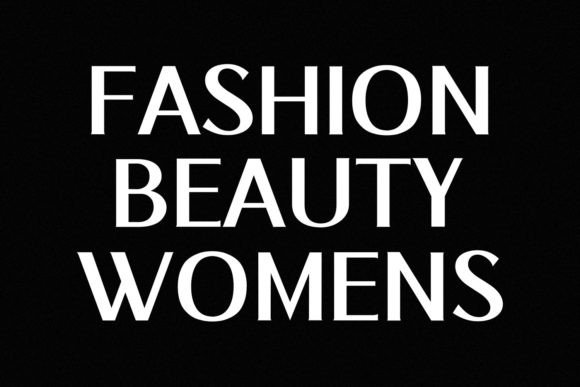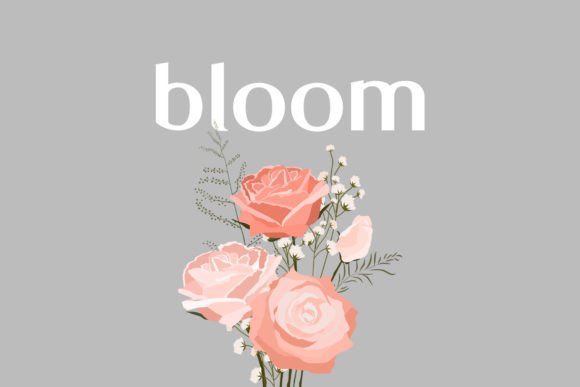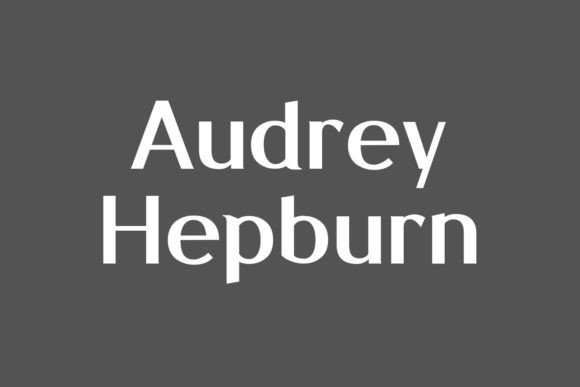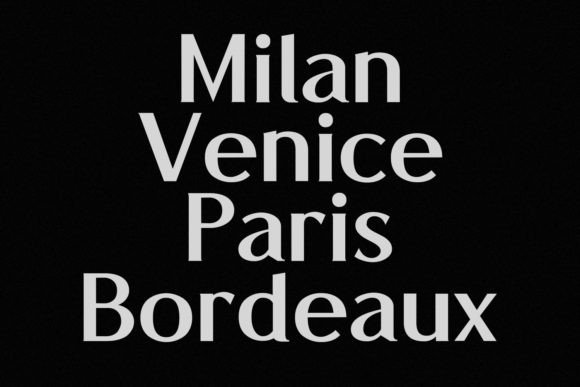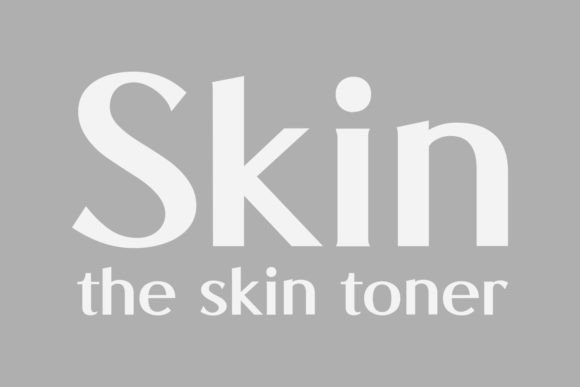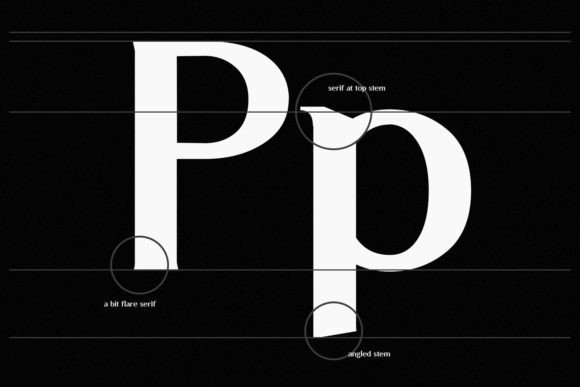
Unveiling the Epitome of Luxury Typography: Abigar Font
As designers, we’ve all been there – staring at a blank canvas, trying to conjure up the perfect font to elevate our brand’s identity. The search for that elusive ‘wow’ factor can be a daunting task, but what if we told you that the solution lies in the sleek, refined lines of the Abigar Font?
This exquisite serif font is designed to transport your audience to a world of sophistication and elegance. With its balanced proportions and seamless swashes, Abigar Font is the perfect choice for luxury branding, high-end editorial design, and any project that demands a touch of timeless beauty and class. As a designer, you’ll appreciate the value of this PUA-encoded font, which makes accessing all glyphs and swashes effortless.
Whether you’re working on a high-stakes campaign or a bespoke branding project, the Abigar Font is sure to leave a lasting impression.
Abigar Font Key Features
- Font Family: Abigar is a serif font family, specifically designed for use in body text and captions.
- Character Set: The Abigar Font family includes a wide range of characters, including Latin, Cyrillic, and Greek alphabets, as well as punctuation and special characters.
- Unique Characteristics: Abigar Font features a unique blend of traditional and modern design elements, including elegant serifs and subtle texture, making it ideal for use in high-end publishing and design applications.
Abigar Font Review
Overall, I was excited to dive into the Abigar Font, but my experience was a mixed bag.
- The font has a unique and elegant feel to it, perfect for high-end branding and sophisticated designs.
- The font family includes a wide range of weights and styles, making it versatile for various design applications.
- The OpenType features are well-implemented, allowing for advanced typographic control.
- The font is not as readable at smaller sizes, which may be a concern for designs that require a lot of text.
- The character set is limited, which may not be suitable for languages that require a wide range of characters.
- The font’s aesthetic may not appeal to everyone, and some users may find it too ornate or over-the-top.
While the Abigar Font has its strengths, its limitations hold it back from being a truly exceptional font. It’s perfect for specific design applications where its unique aesthetic is a good fit, but it may not be the best choice for more general or text-heavy designs.
Abigar font is best suited for creative projects, such as:
- Brand logos and marketing materials.
- Artistic typography and quotes.